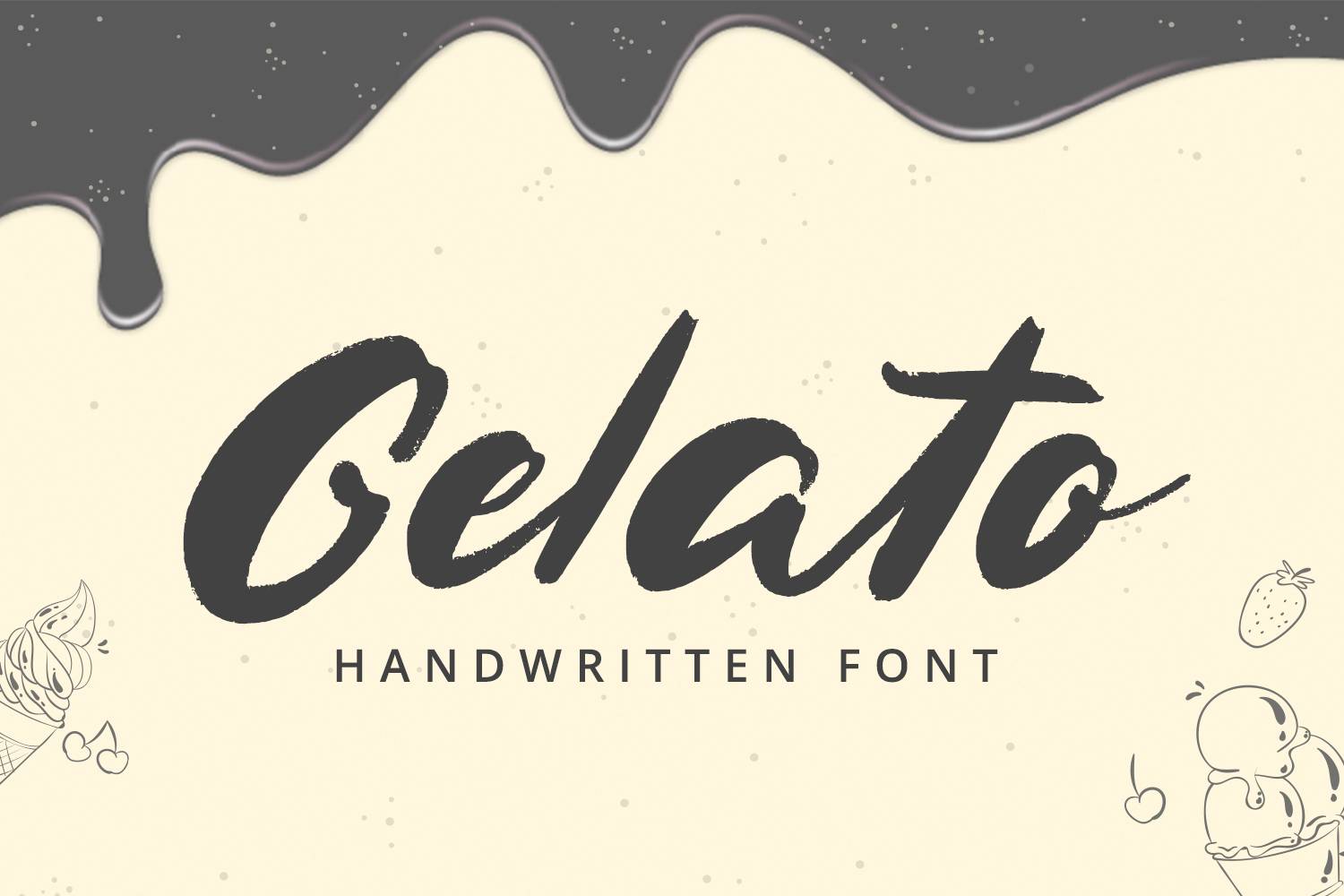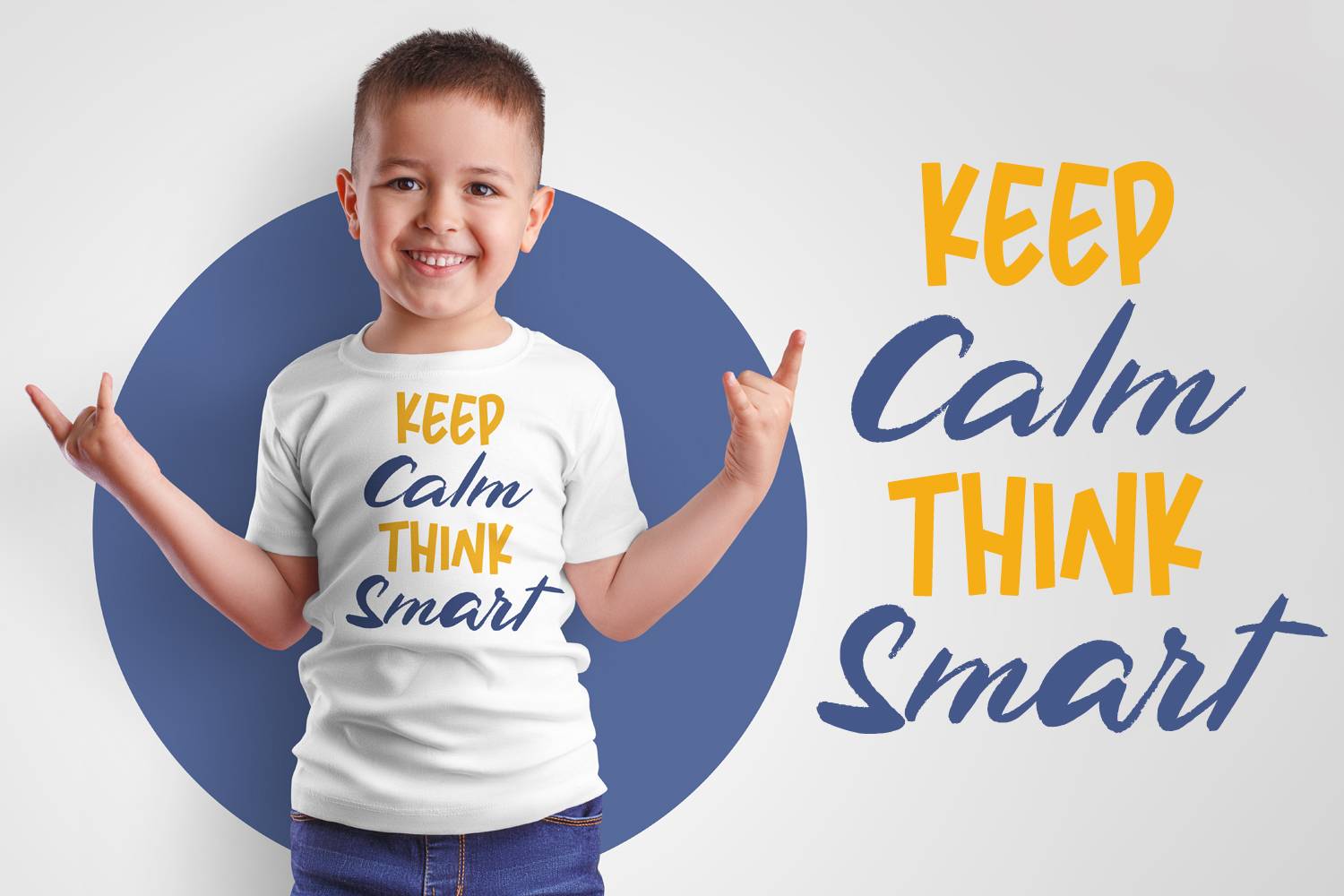
Gelato is a lively and expressive script font with a bold, brush-painted feel that combines energetic strokes and a casual elegance. Its dynamic, slightly slanted letterforms convey a hand-crafted, artistic vibe that suits creative branding, eye-catching headlines, and playful designs. Perfect for projects needing a personal, informal touch with a strong visual impact.
Gelato Font
About Gelato Font